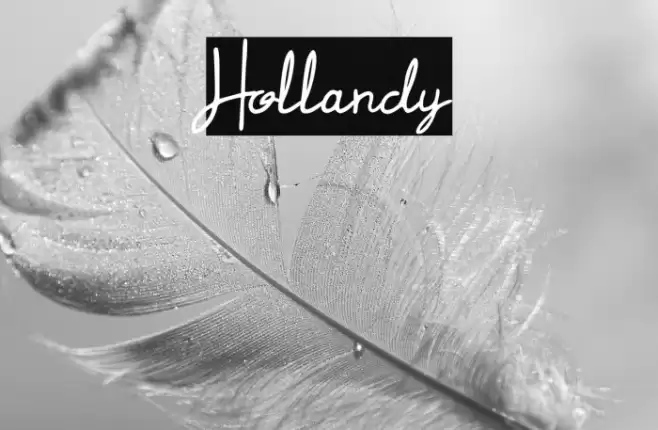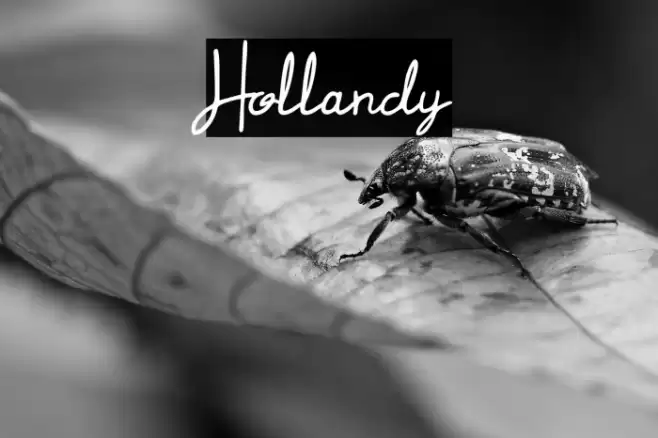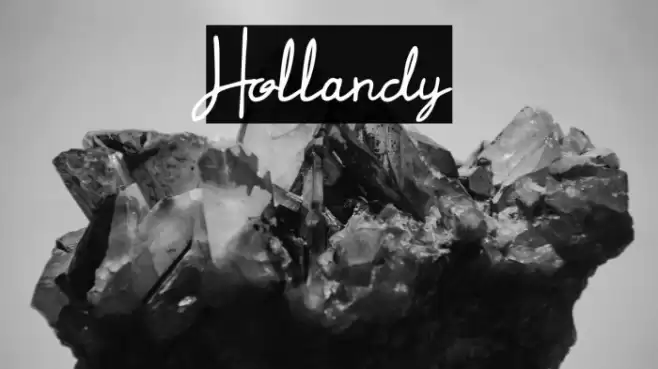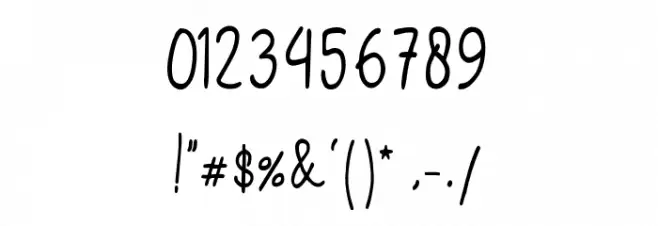
Hollandy Font
Hollandy Description
This font features a handwritten, cursive style with a playful and elegant flair. The characters are connected, mimicking the fluidity of natural handwriting. The uppercase letters are slightly larger and more elaborate, while the lowercase letters maintain a consistent flow. The numbers and special characters are designed to match the overall aesthetic, providing a cohesive look. The strokes are smooth and slightly varied in thickness, adding to the handwritten feel. This font is ideal for projects that require a personal touch, such as invitations, greeting cards, or branding materials.
A playful, handwritten cursive font with smooth, connected strokes from Regular fonts.
- Proposed Projects: Ideal for invitations, greeting cards, personal branding, and creative projects.
- Use Case: Logos, Invitations, Greeting Cards